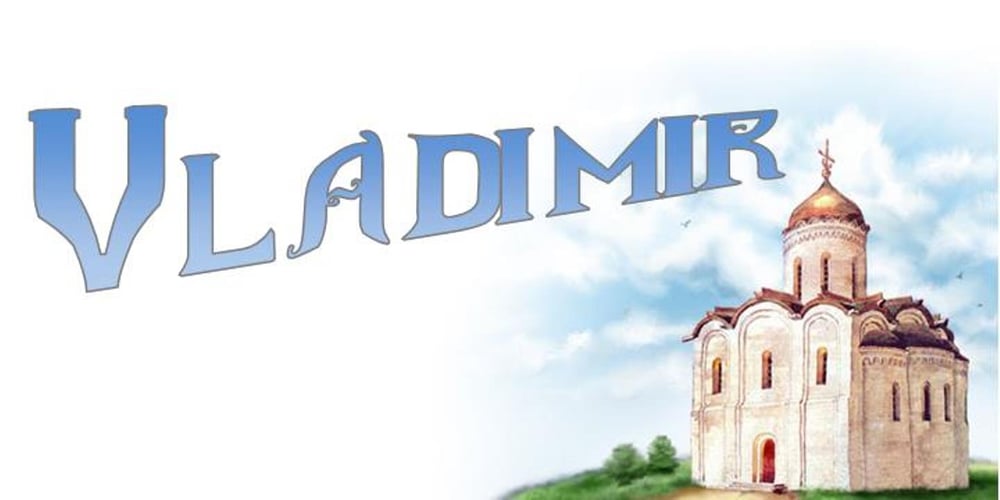
Vladimir Font Family was designed by Brett T. Johnson and published by Simeon out West. Vladimir contains 4 styles and family package options. Vladimir is a font based on a hand-lettered souvenir that I brought back from the Vladimir/Suzdal region in 2001. Vladimir includes characters for Cyrillic and most Eastern and Central European languages. The Vladimir/Suzdal region is northeast of Moscow and is part of Russia’s famed “Golden Ring” of medieval architecture. The city of Vladimir is situated north of the invasion route taken by the Mongols in the 13th century. After Kiev was destroyed, the ecclesiastical structure of Rus relocated itself to Vladimir until the fifteenth century when the Metropolitan of Kiev and all Rus was lured to Moscow. The advantage of being off the invasion rout spared the area from the destruction that accompanied the Mongol invasion and has made the Vladimir/Suzdal region home to some of the finest examples of medieval Russian architecture. The Church of the Dormition of the Theotokos in the Moscow Kremlin is modeled after its more ancient namesake in Vladimir.